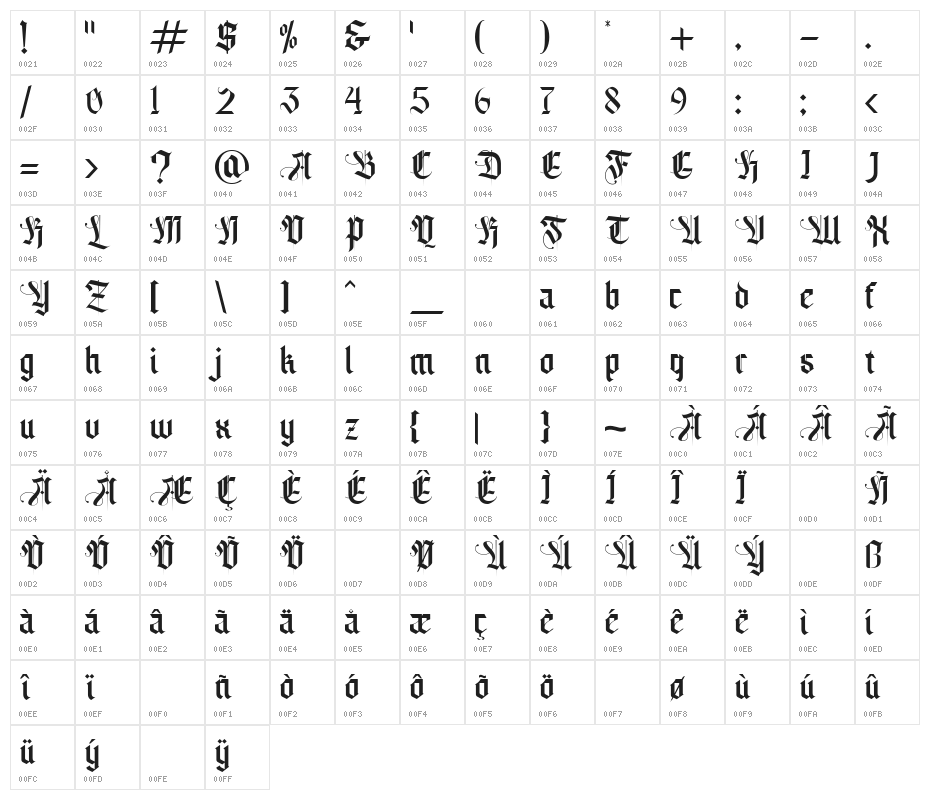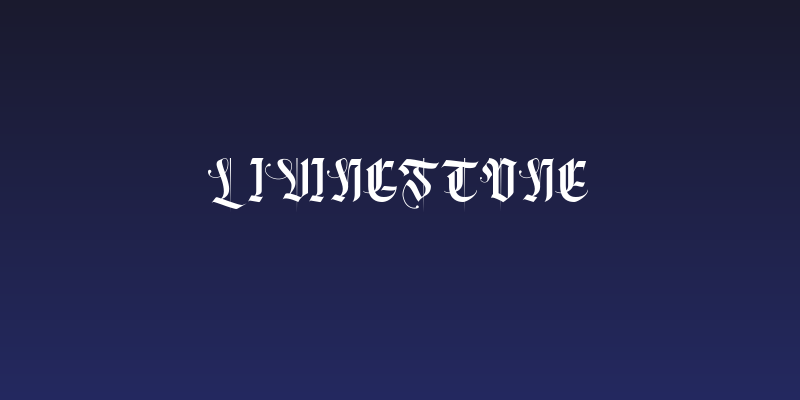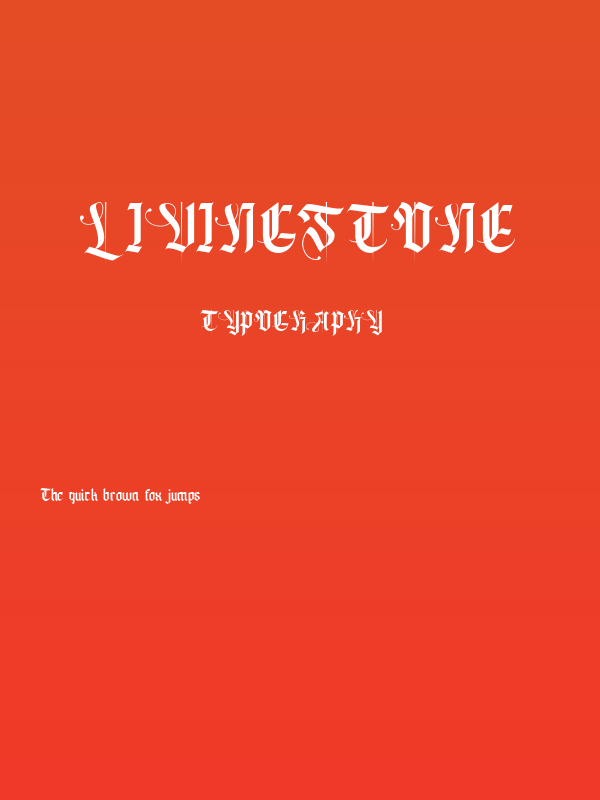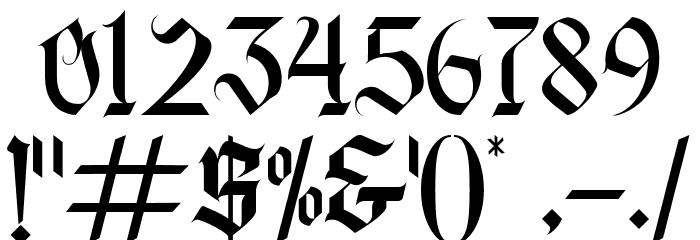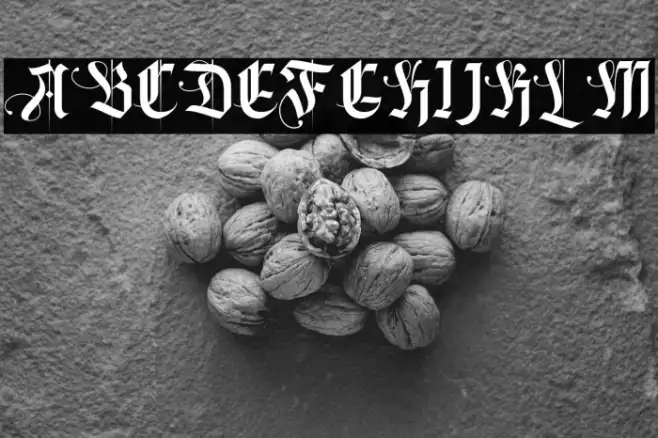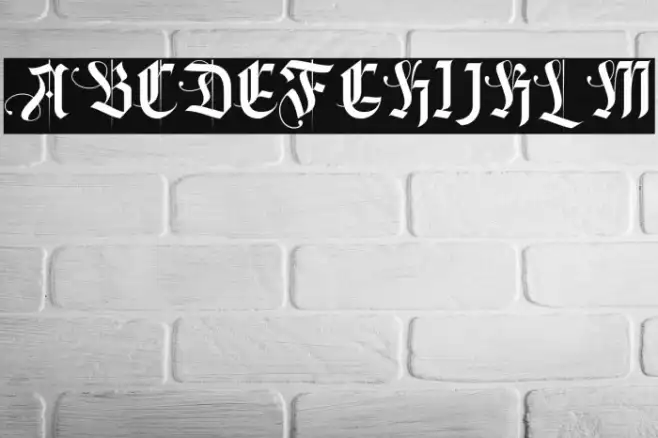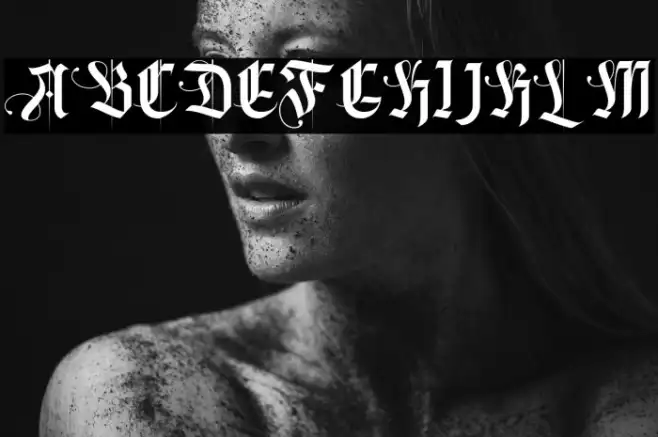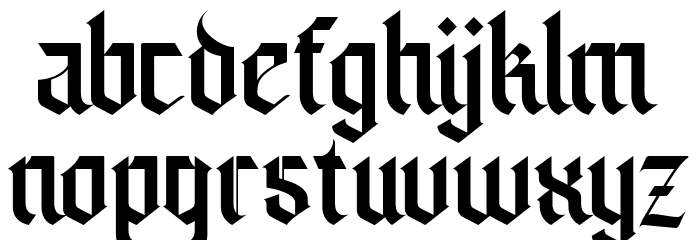
livingstone Font
livingstone Description
This font exhibits a bold and dramatic style, reminiscent of traditional Blackletter typefaces. The characters are characterized by their sharp, angular lines and intricate detailing, which give them a distinct Gothic appearance. The uppercase letters feature elaborate flourishes, while the lowercase letters maintain a more straightforward yet equally bold design. The numerals and special characters are consistent with the overall aesthetic, providing a cohesive look. This font's strong visual impact makes it suitable for projects that require a historical or medieval touch.
| Proposed Projects | Ideal for use in historical documents, medieval-themed designs, book covers, posters, and branding that requires a dramatic and traditional touch. |